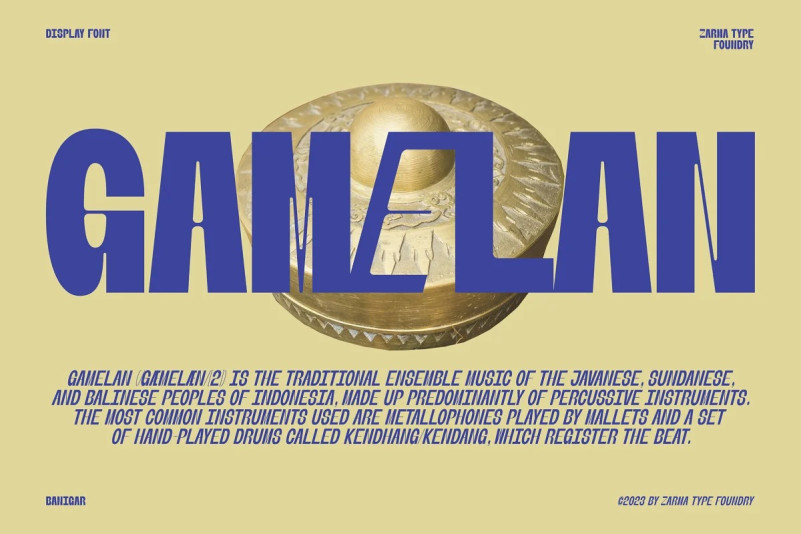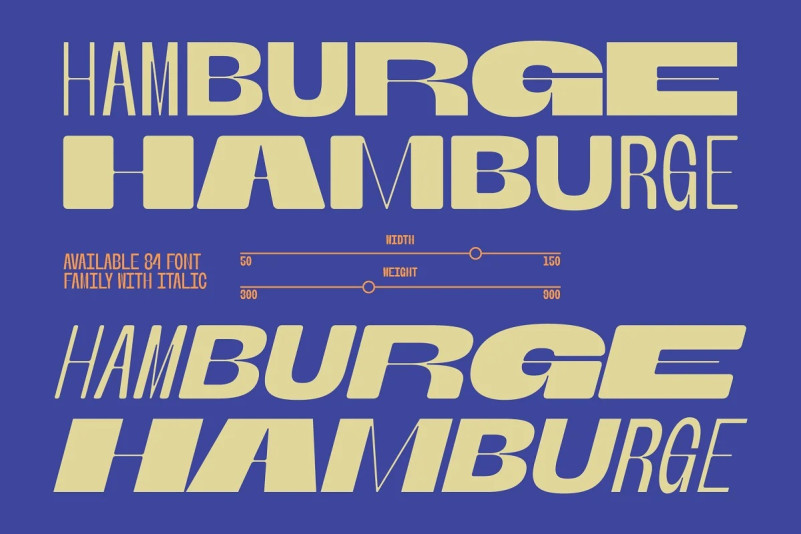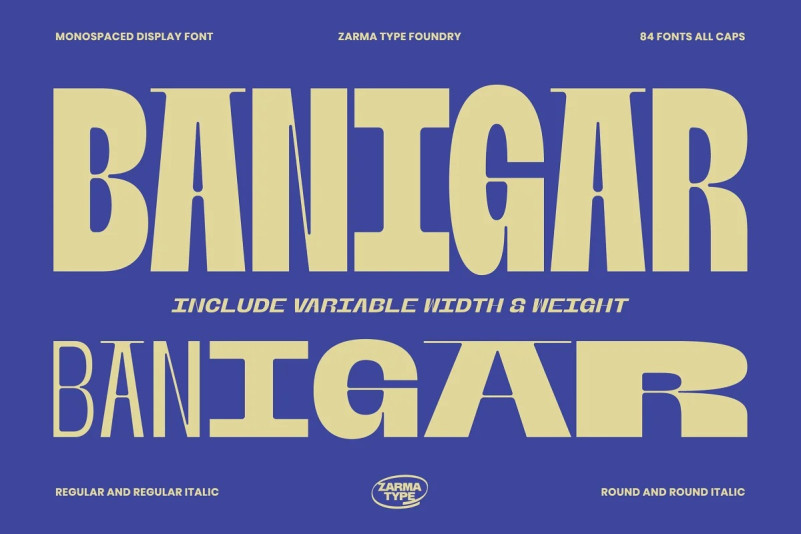
Banigar Font
Introducing Banigar Display font family! Comes with 4 styles including regular, italic, rounded, and rounded italic. Also available in 7 Weights (Light, Regular, Medium, Semi-Bold, Bold, Extra-Bold, Black) and 3 Widths (Condensed, Normal, Expanded) on each style with total 84 fonts.
Banigar is perfect for creating designs that are both modern and confident. With consistent letter width and a high contrast between thick and thin strokes, Banigar is sure to grab your audience’s attention. Whether you’re looking to create something fresh and bold or something experimental and daring, Banigar has got you covered. Don’t settle for an ordinary font, upgrade to Banigar today!